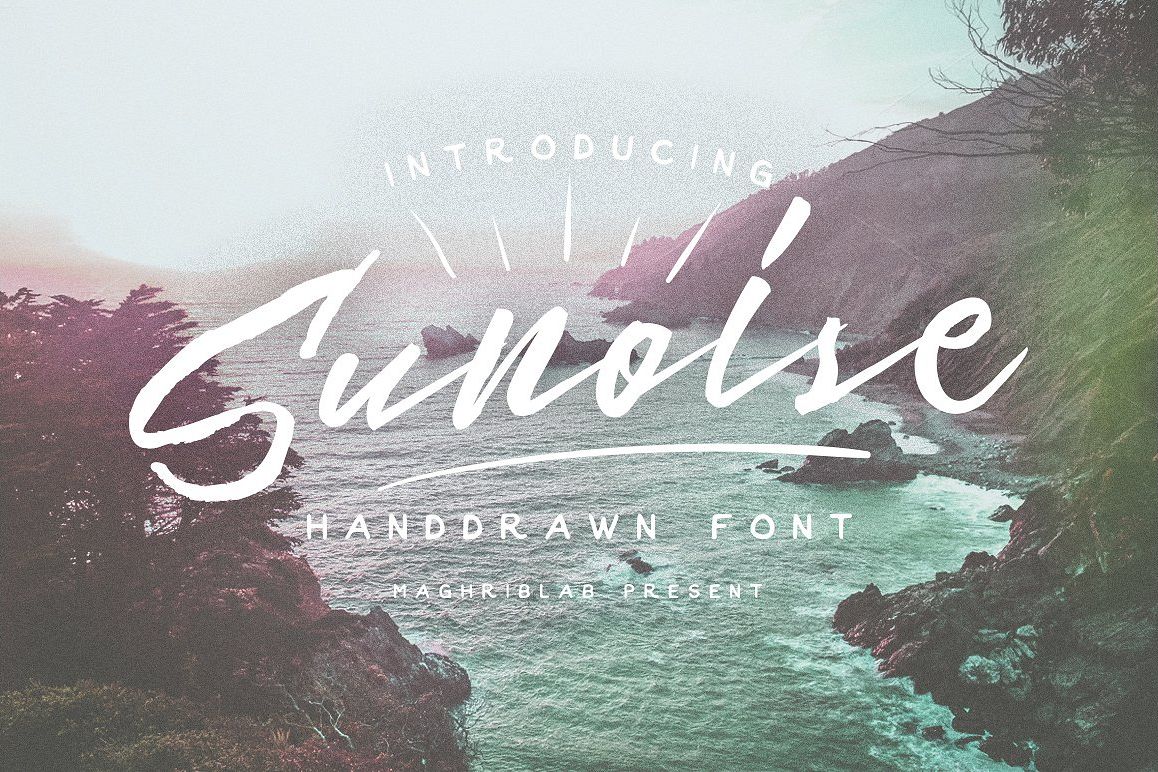
Sunoise Hand Drawn Script
SunoiseScript-Italic
Sunoise Script typefaces was created as font purpose, withimperfect, hand painted characters and an irregular baseline. this fonts have dancing baseline to ensure that modern style.